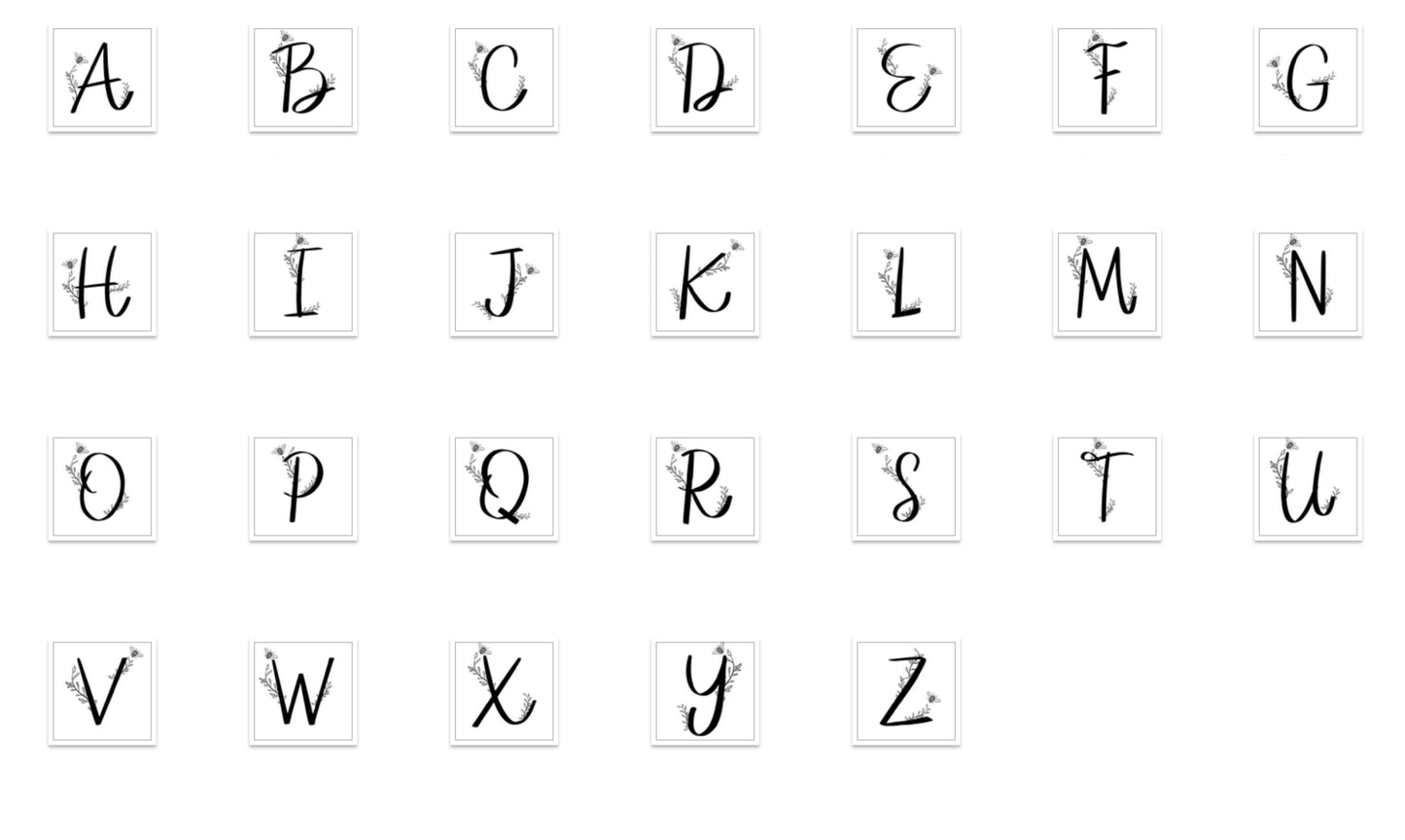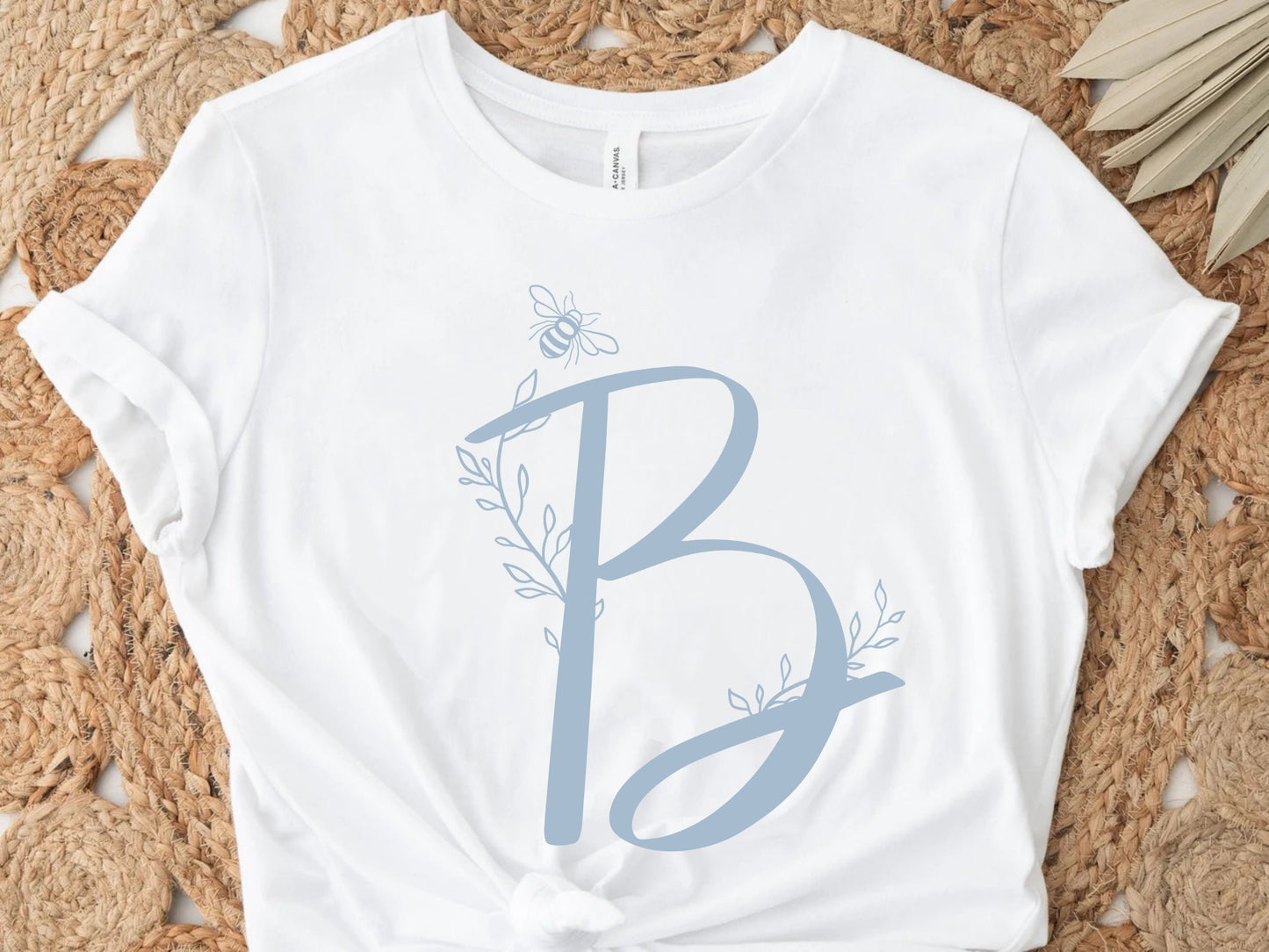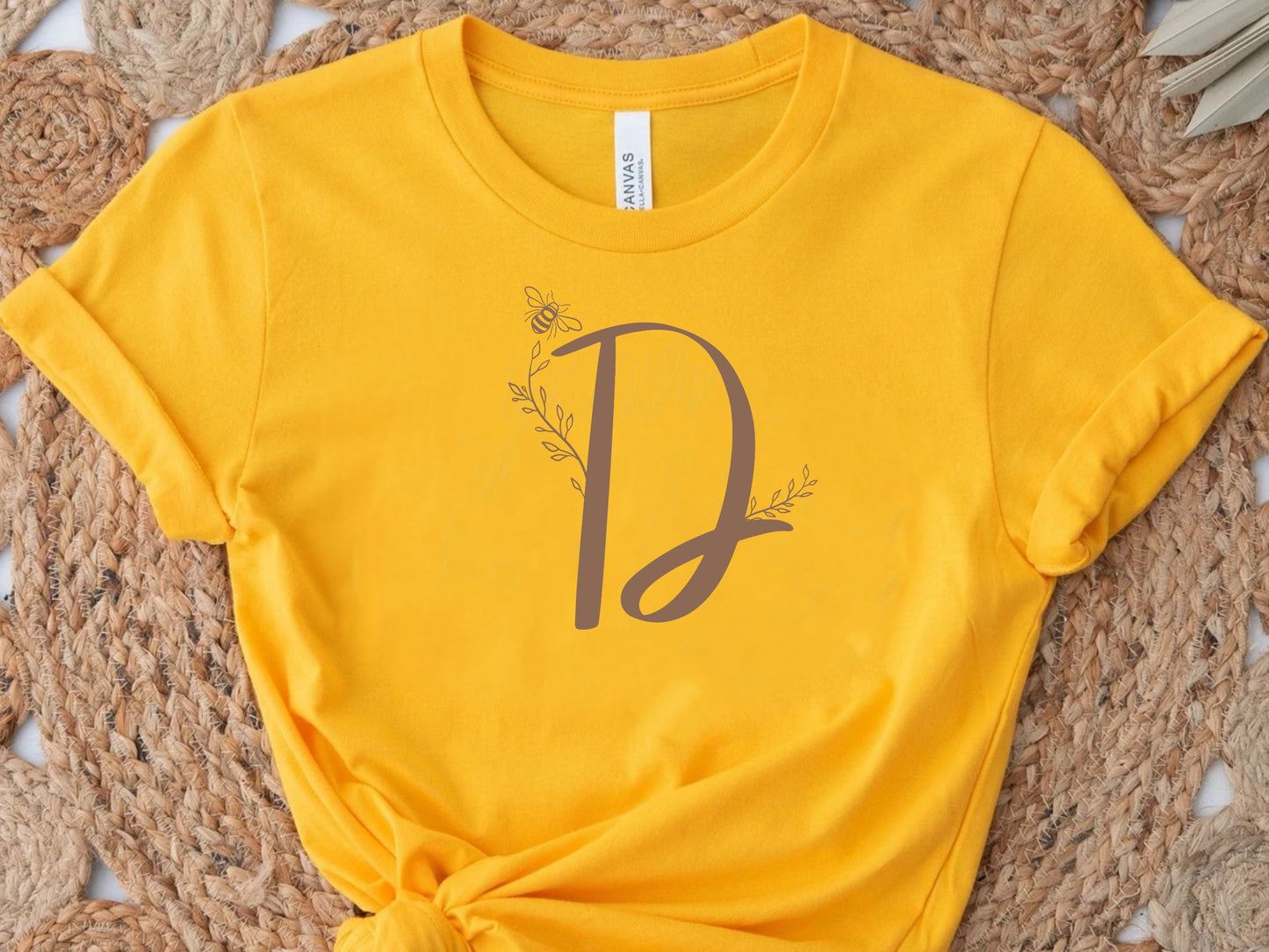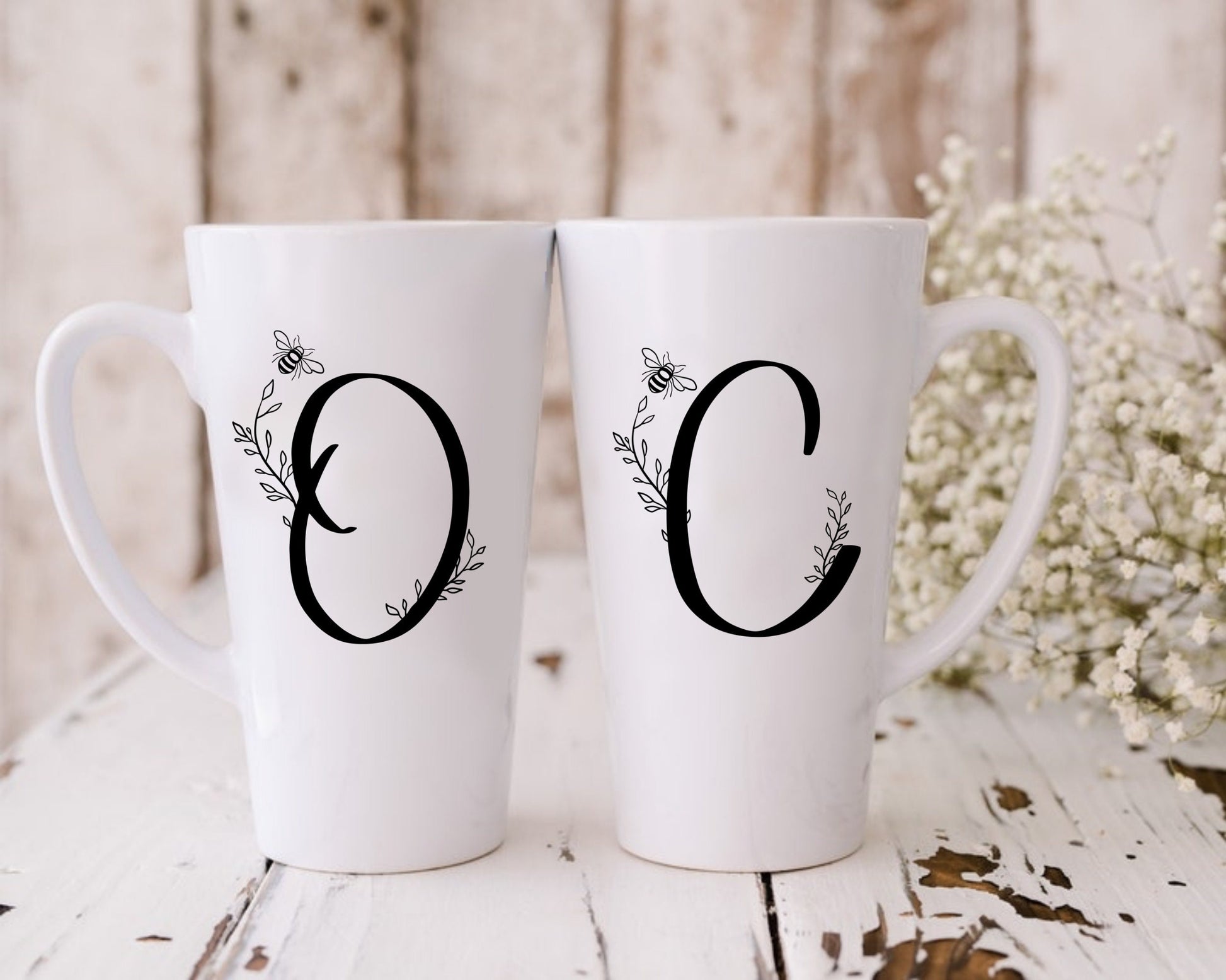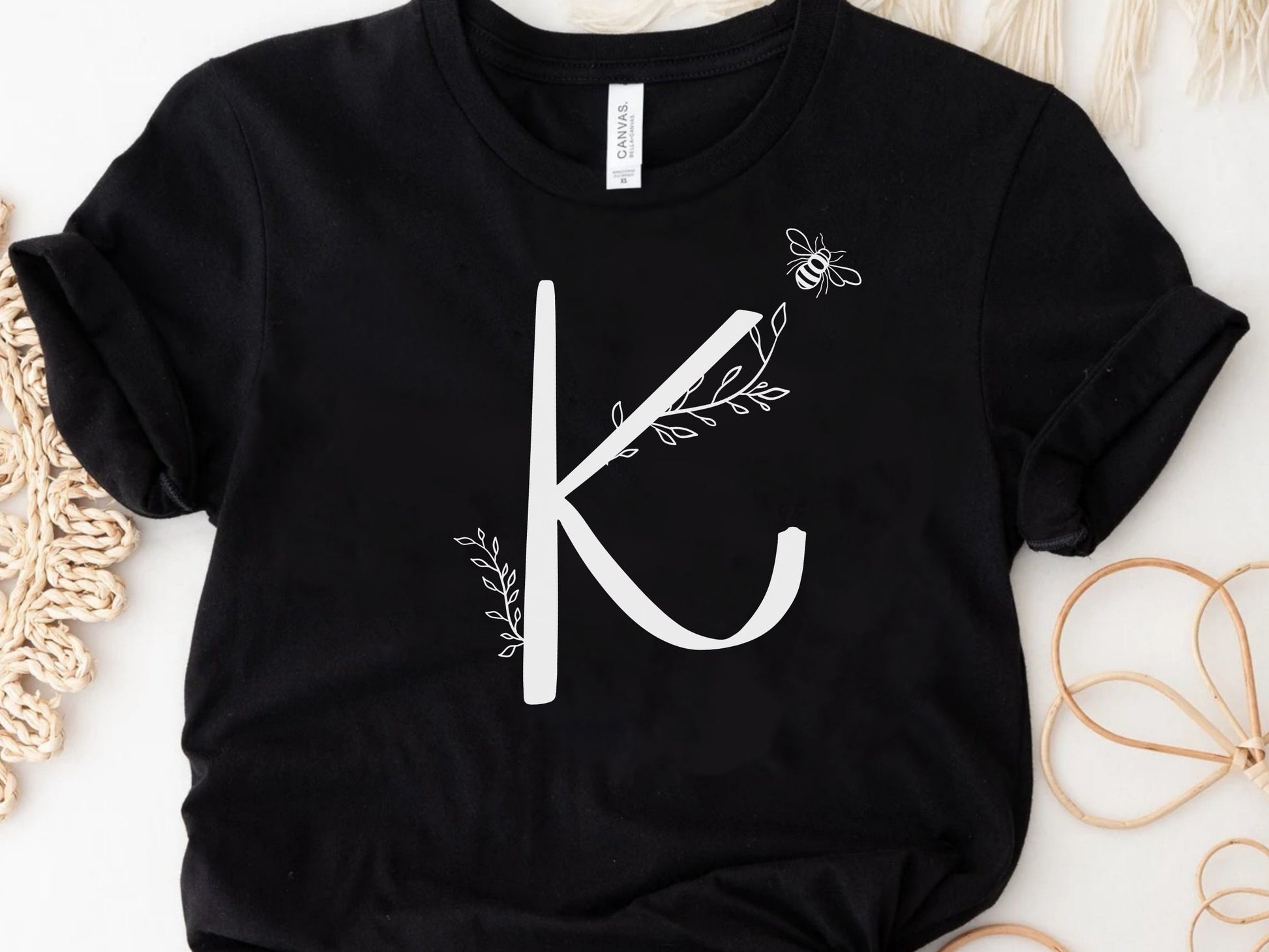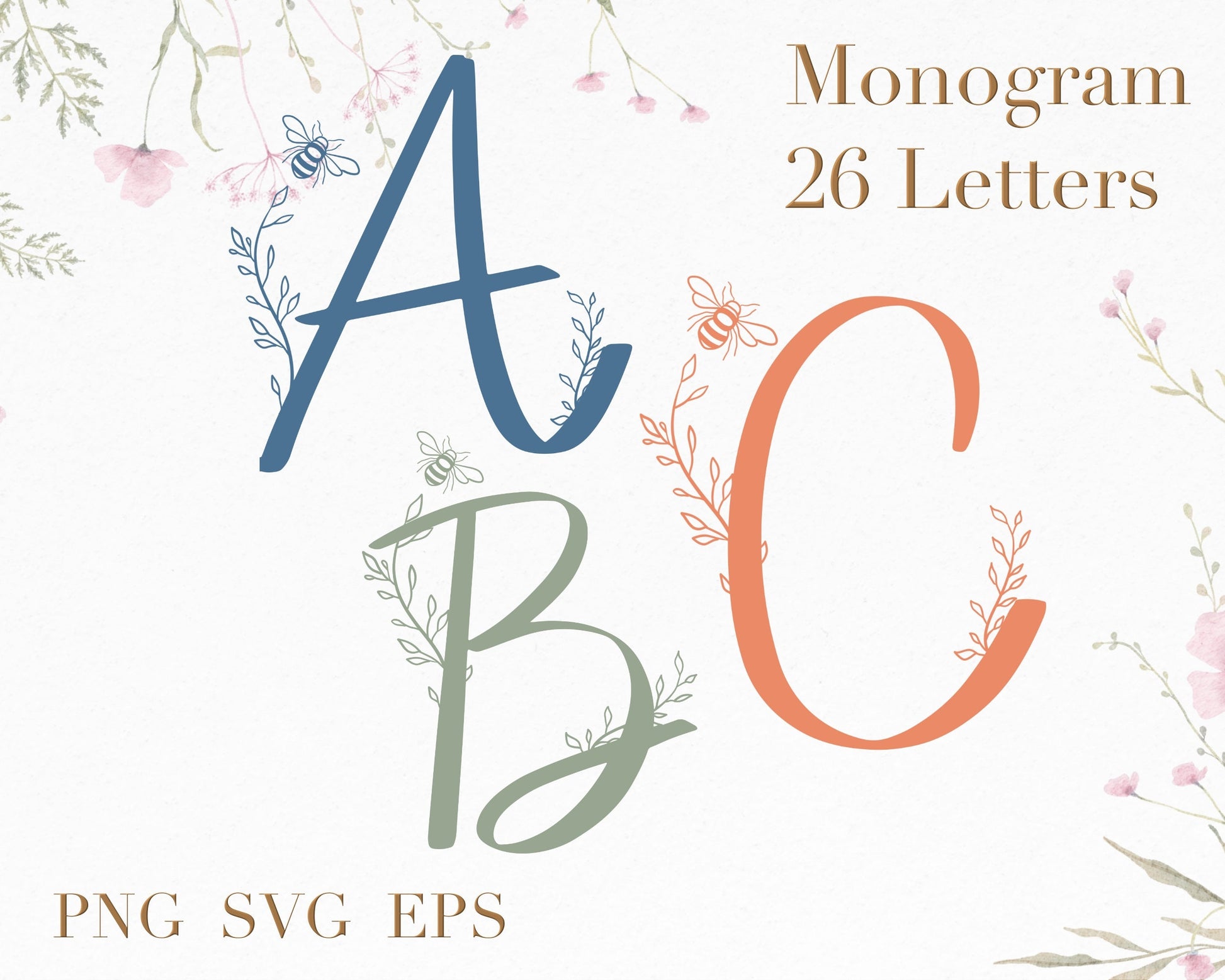
Bee Monogram Alphabet Clipart
26 individual flower & bee letters/ monogram/ alphabets for instant download, includes SVG and PNG file formats (high resolution outline art and silhouette, 300 dpi). Easy to download and edit for your projects, such as banners, tapestry, Christmas ornament, keepsake, wedding decor & invitation, t-shirts, mugs, bags, wall decor, cards and POD products...etc. Those files are compatible with Canva, Cricut, Illustrator, photoshop and other software, cut files can be used for vinyl, engrave and prints, turning your designs into unique creations for personal and commercial use.